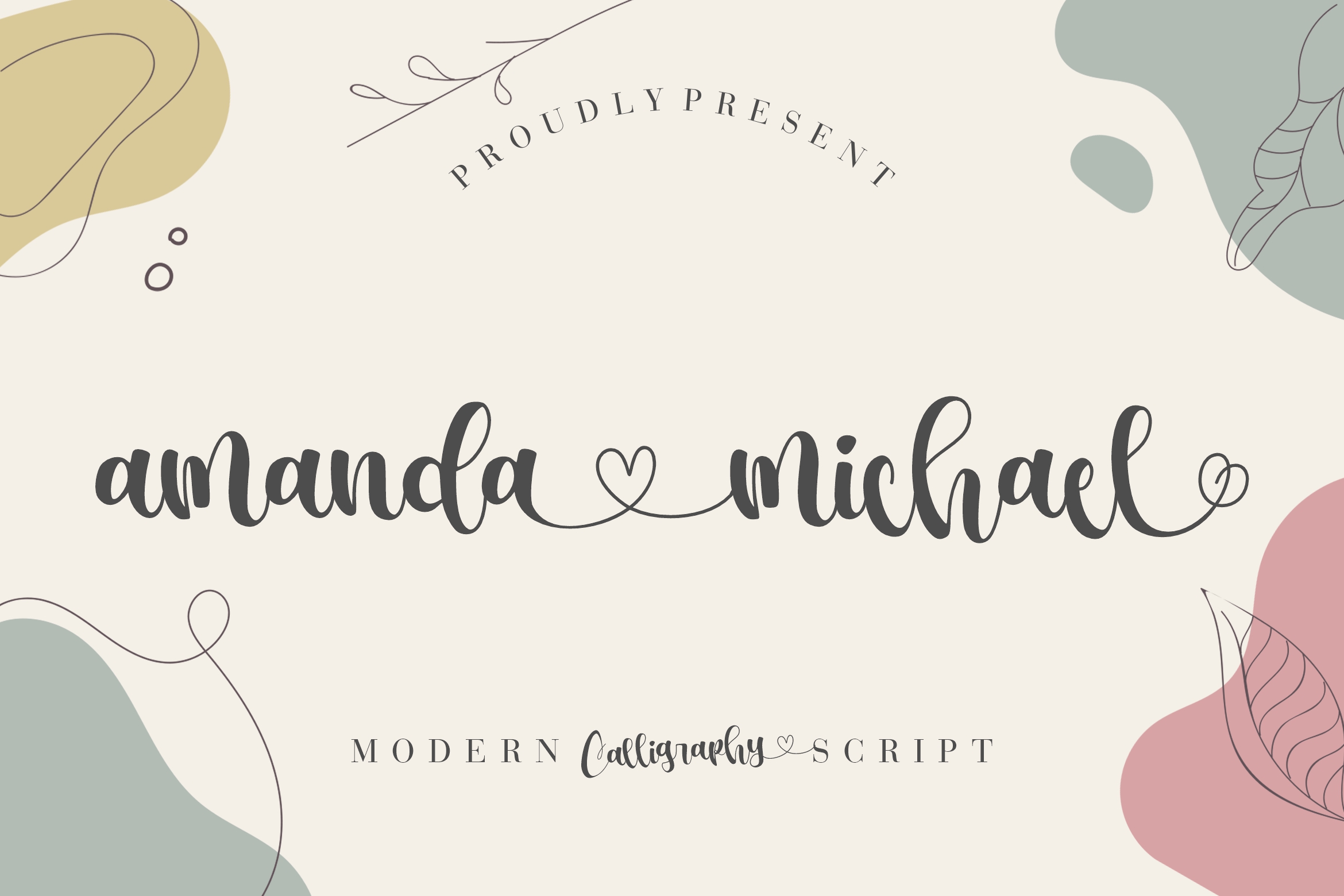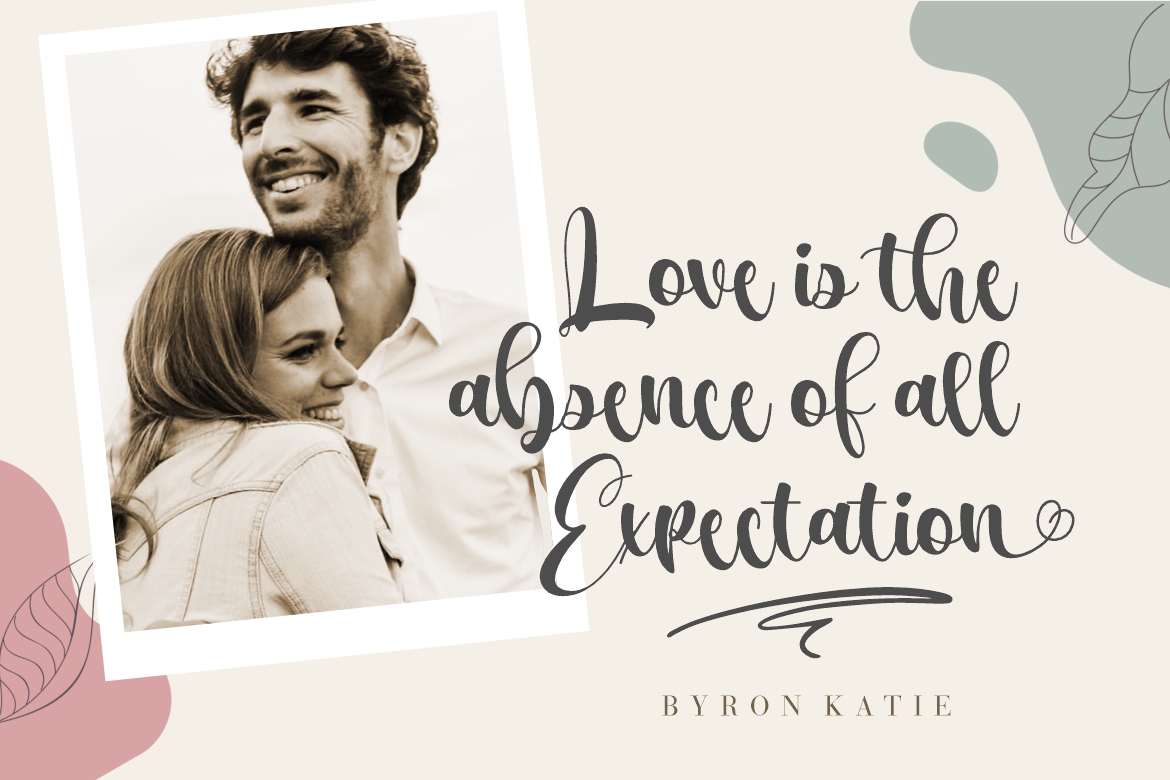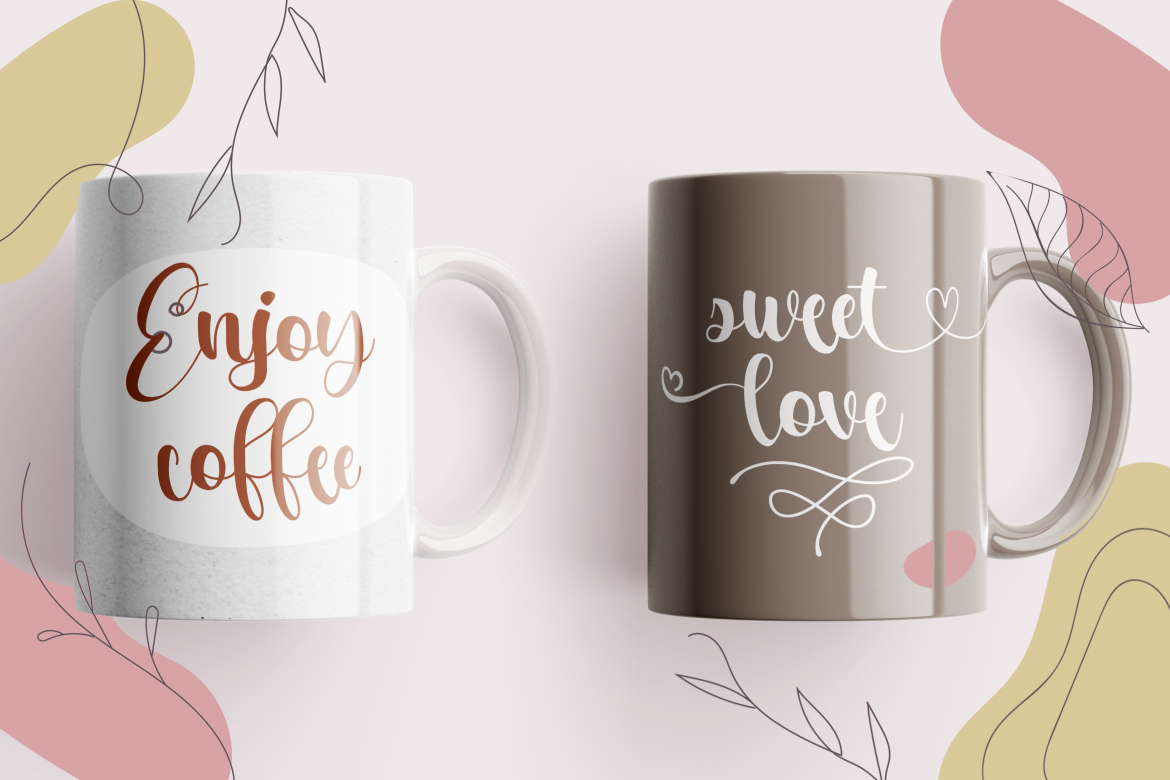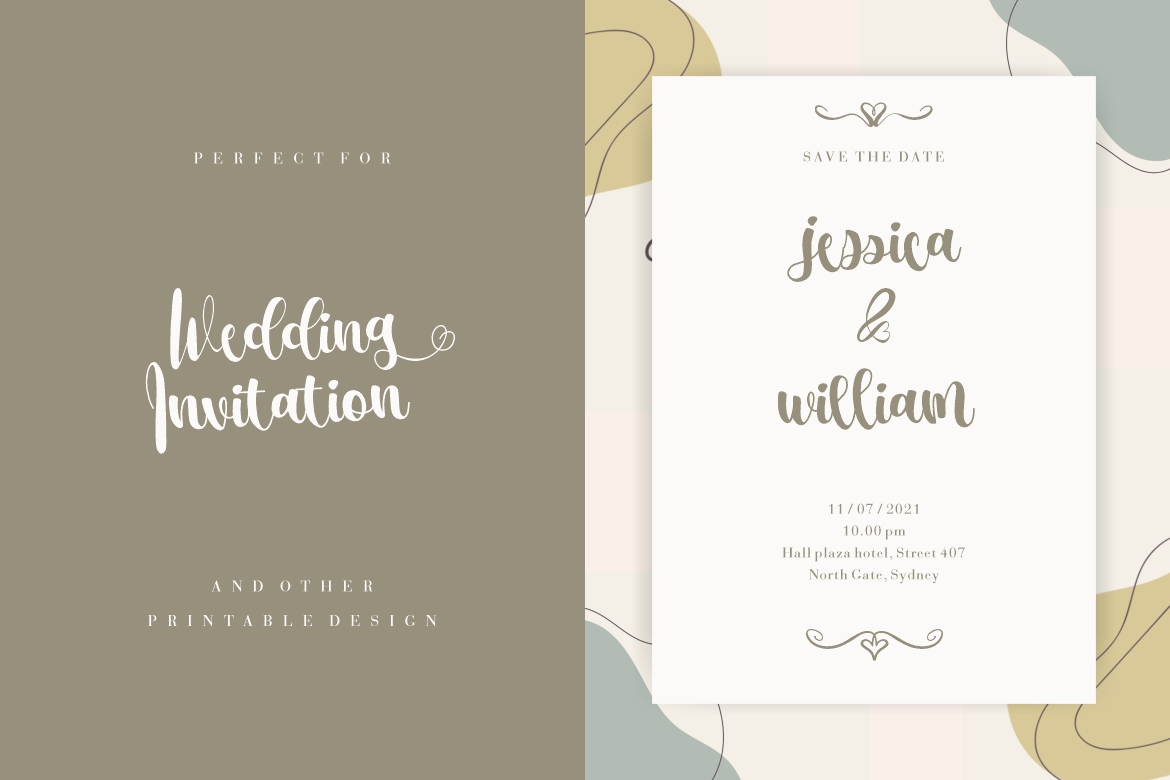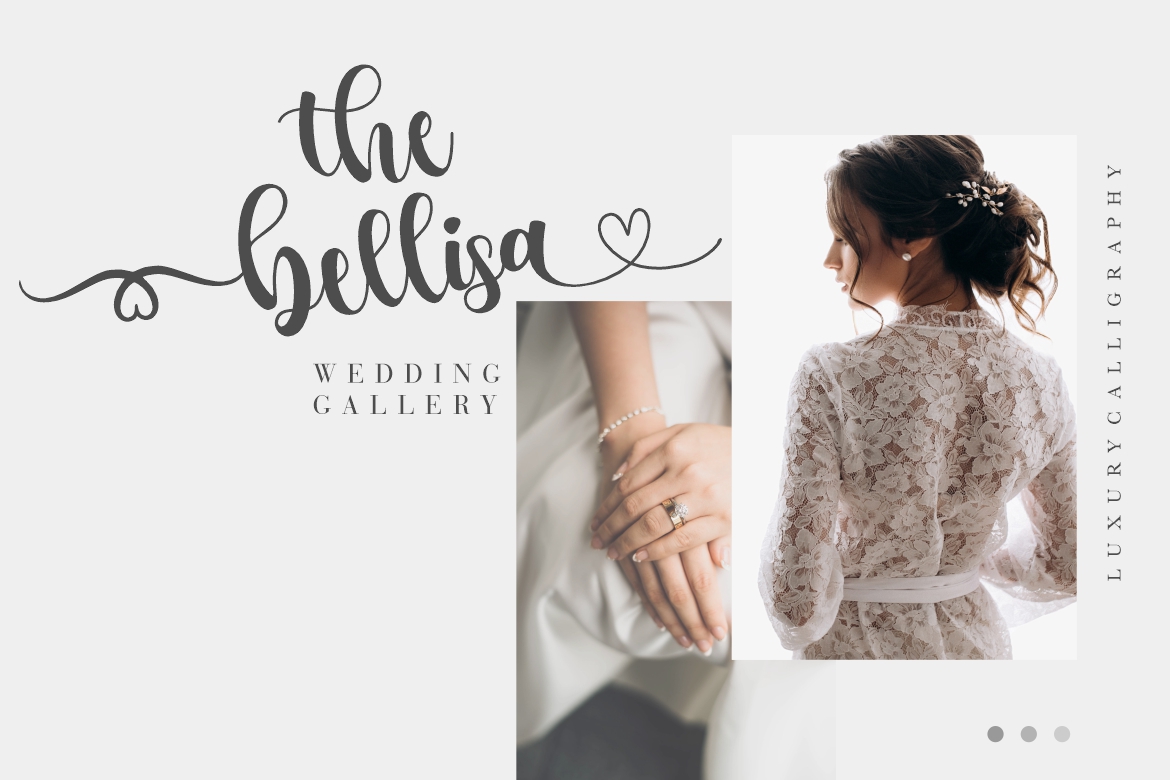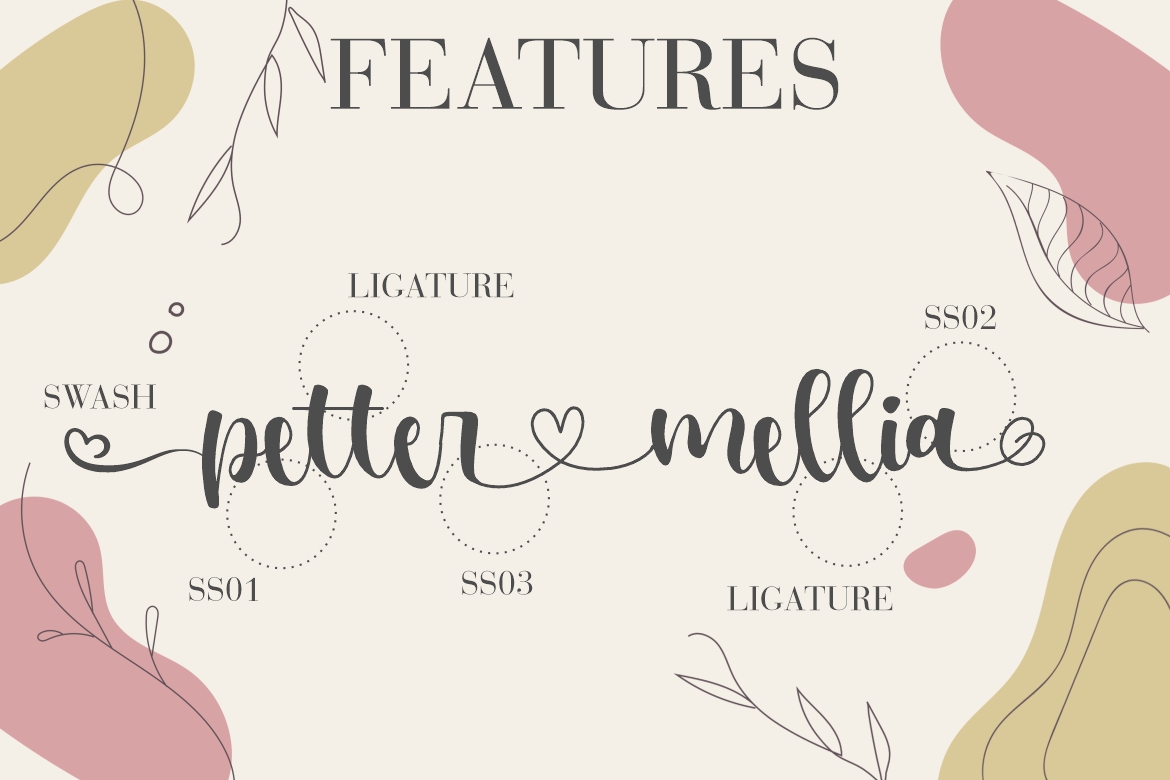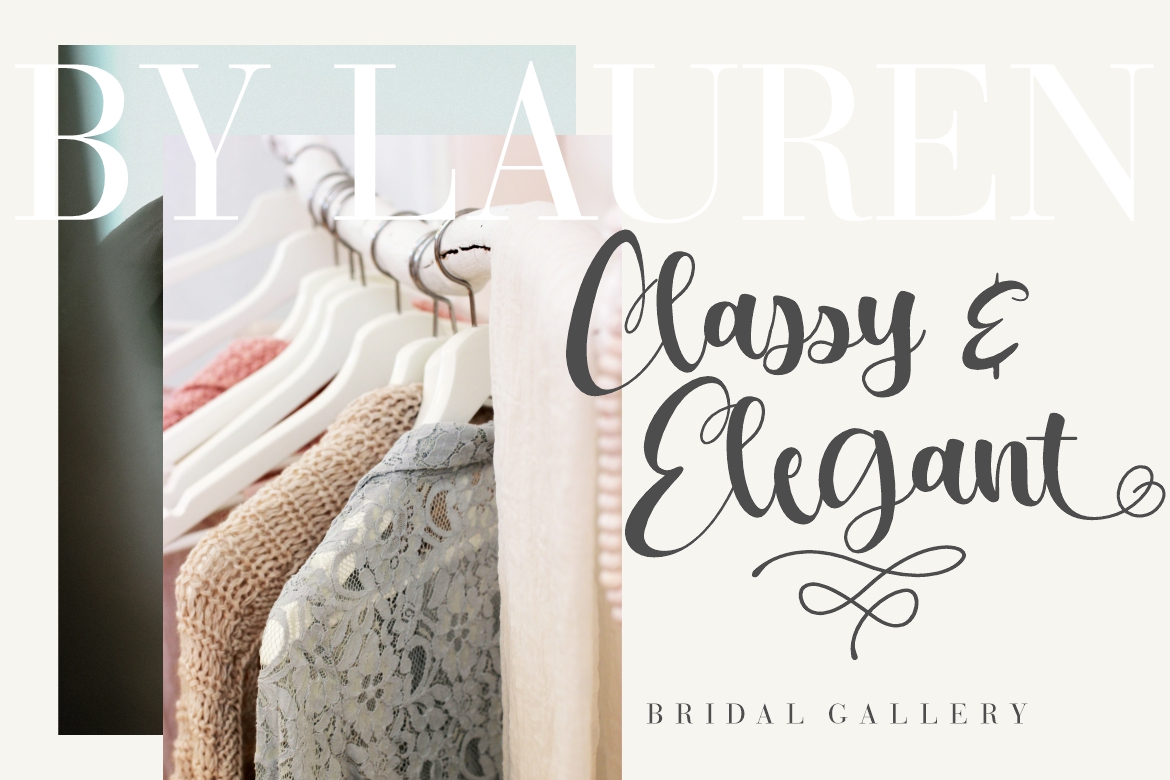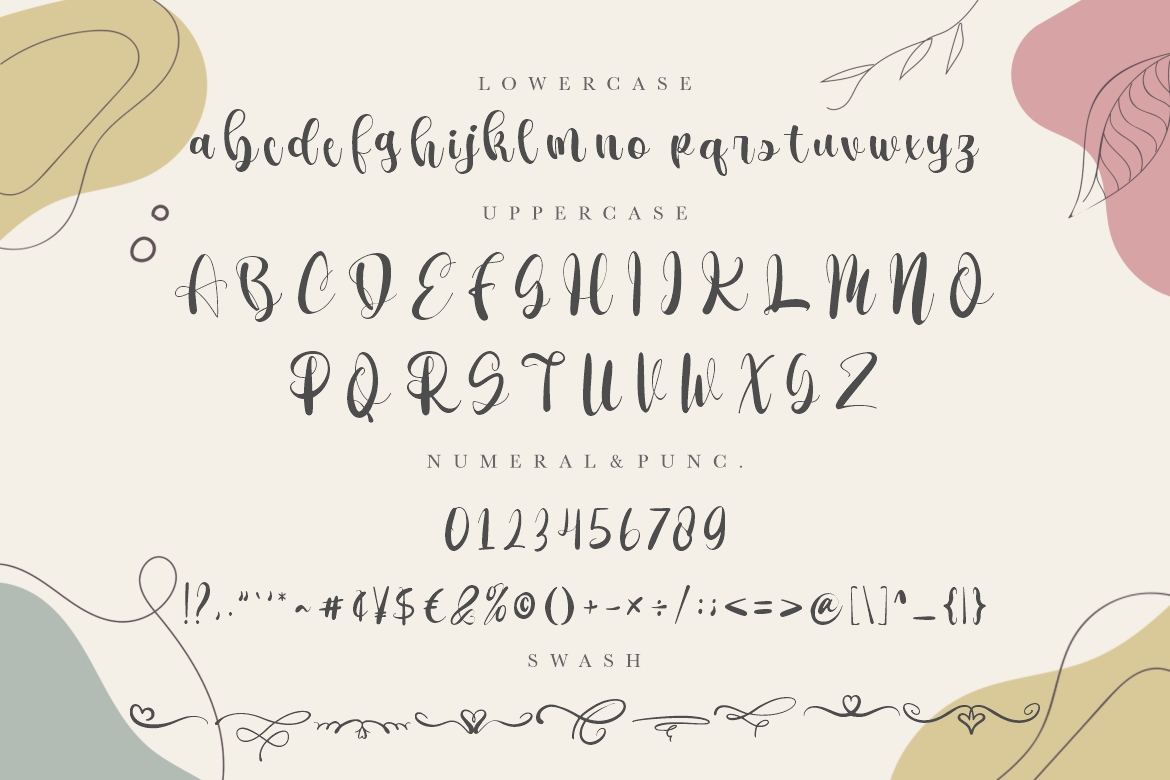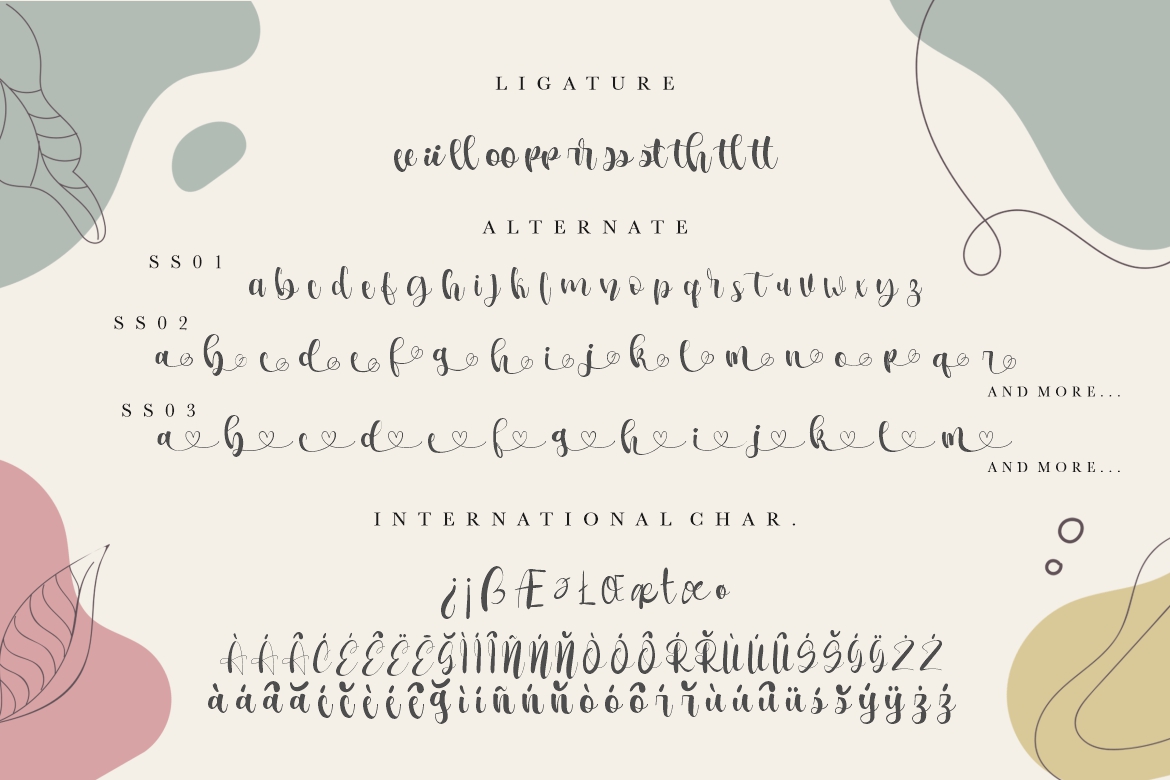
Amanda Michael Modern Wedding Font
Introducing Amanda Michael – A modern calligraphy script font with various alternate and ligature. This font will looks awesome and amazing in many way to your latest project. The font is perfect for movie title, logo, blogging, brand identity, book title, social media, branding, wedding invites, cards or simply use it in your next design project and suitable to use for many occasion.